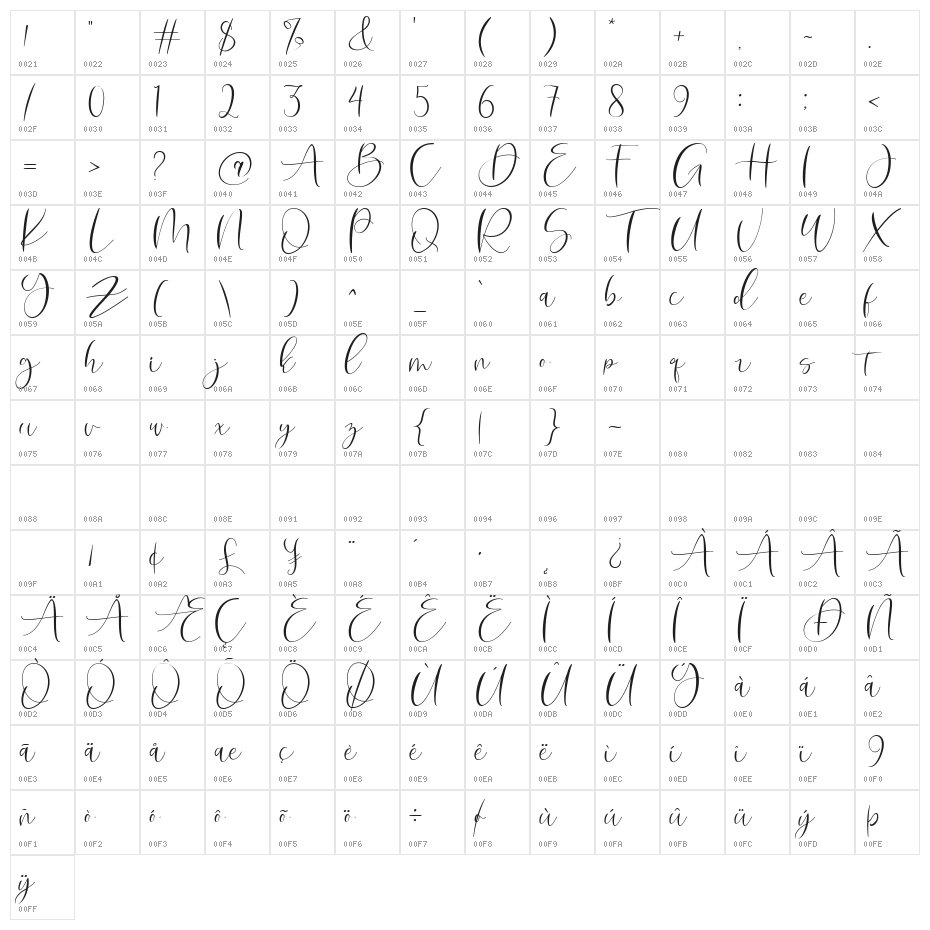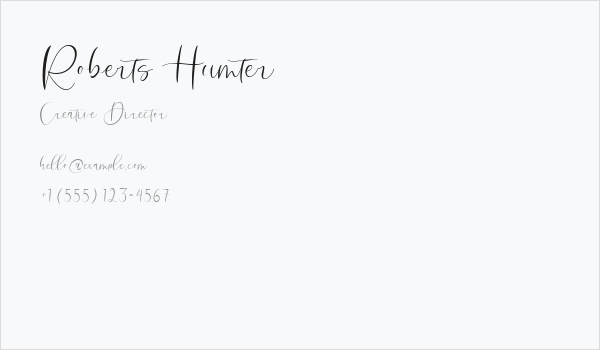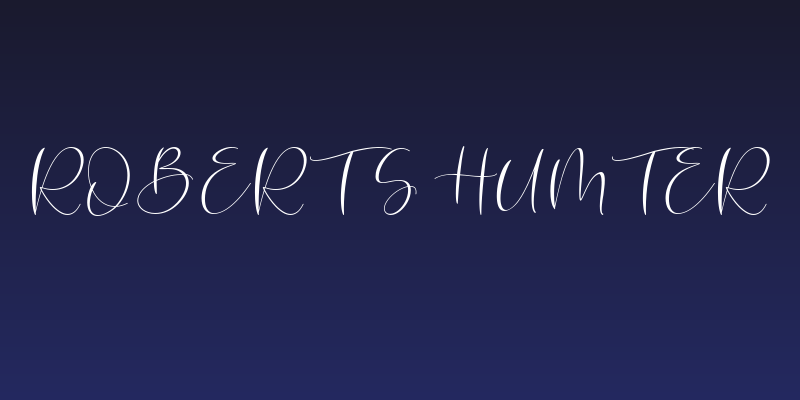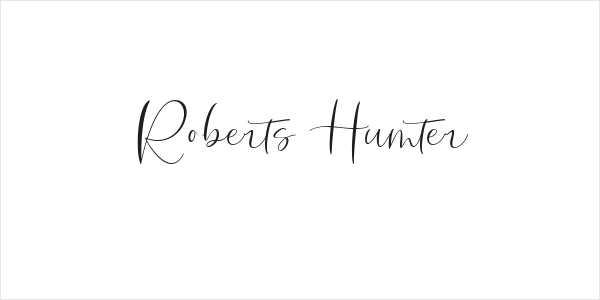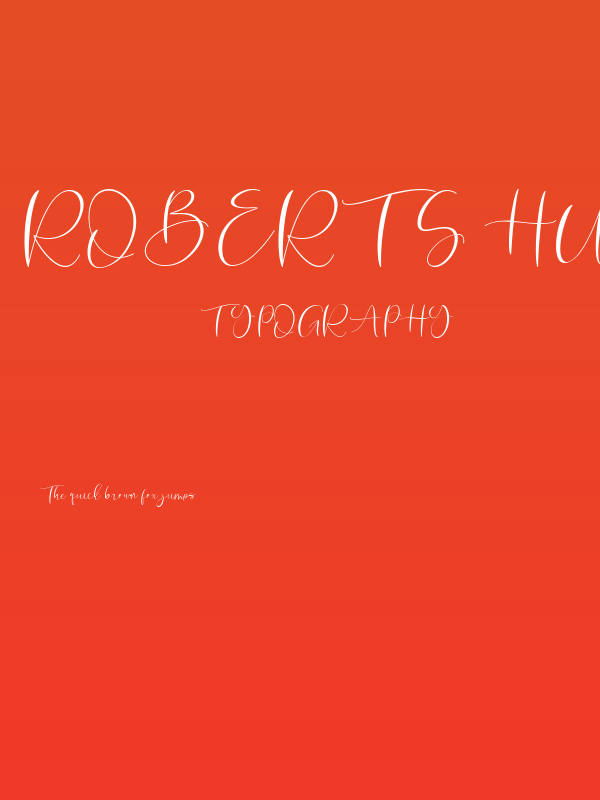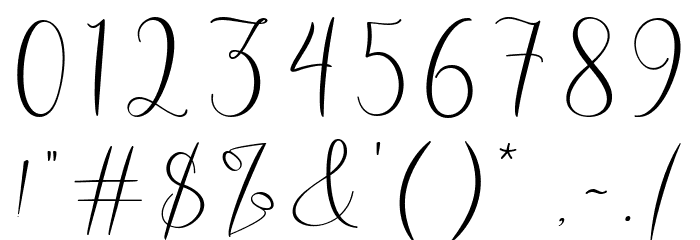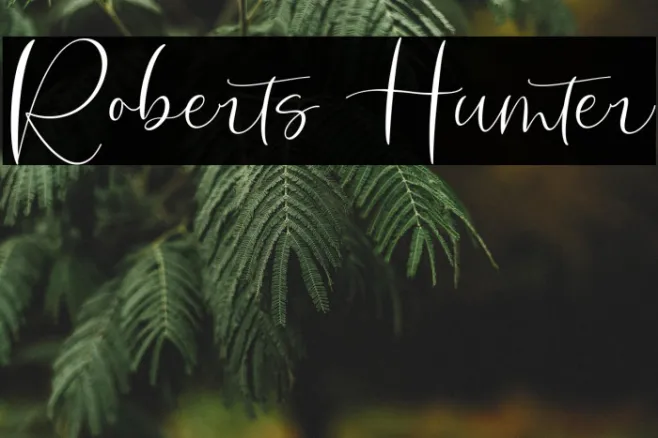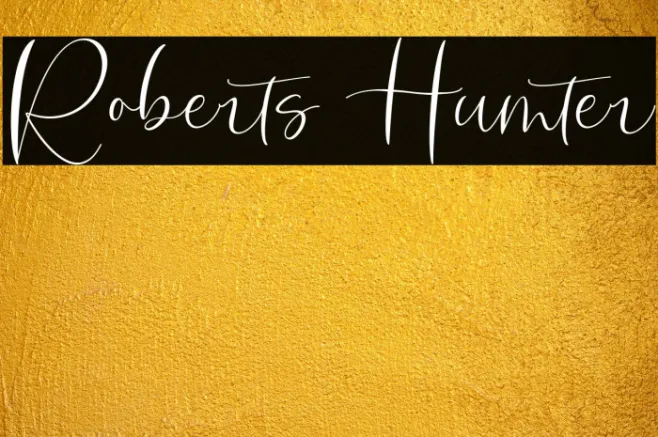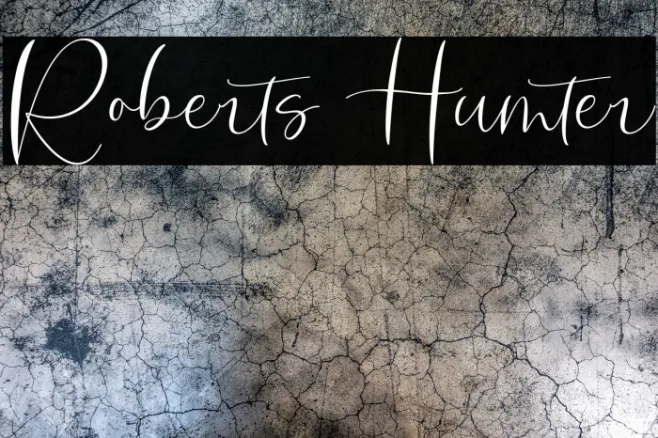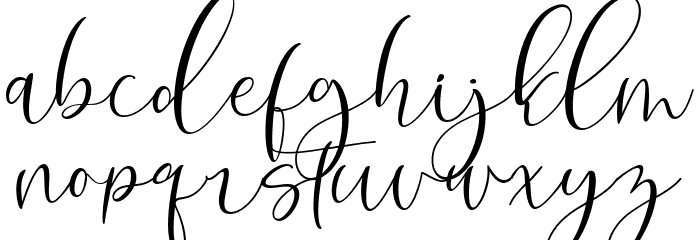
Roberts Humter Font
Roberts Humter Description
This elegant script font features a flowing, cursive style with a modern touch. The uppercase letters are characterized by their graceful loops and swashes, creating a sense of movement and fluidity. The lowercase letters maintain a consistent style, with elongated ascenders and descenders that enhance the font's sophisticated appearance. The numerals are distinct yet harmonious with the overall design, and the special characters complement the script's aesthetic. This font is perfect for adding a touch of elegance and sophistication to any project.